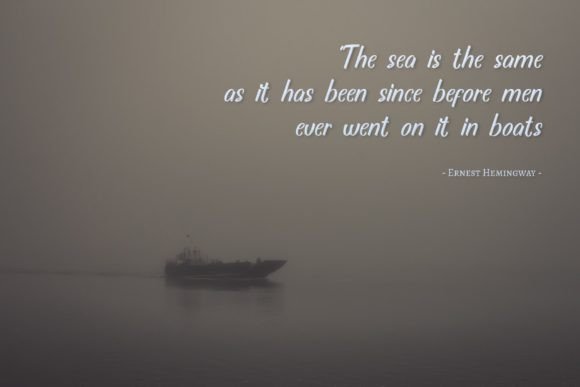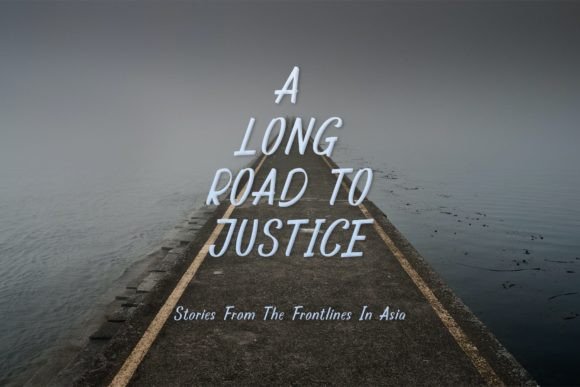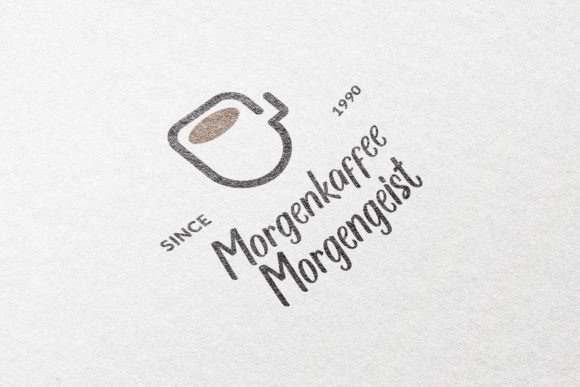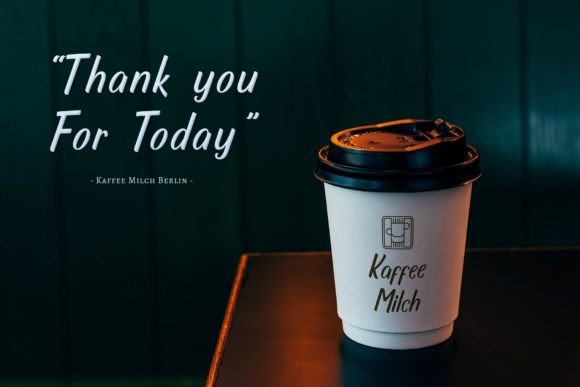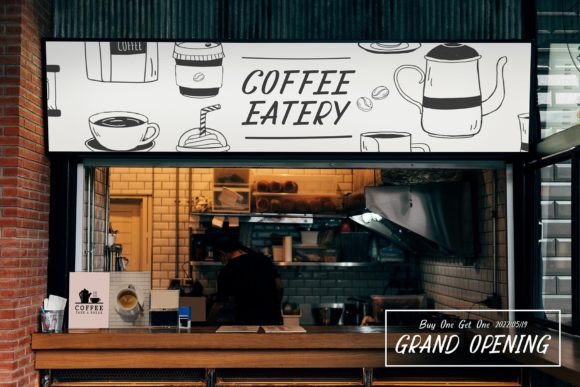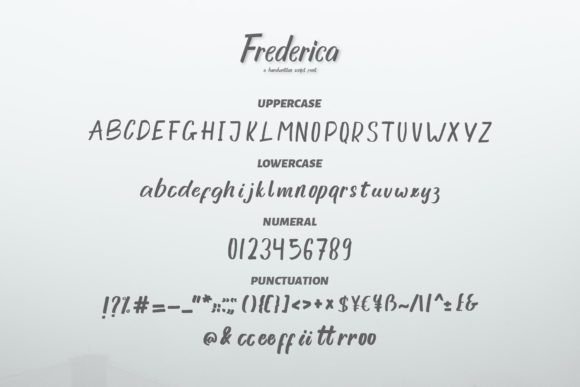
Introducing Frederica Signature: The Modern Handwritten Font for Elegant Designs
In the world of typography, a new font has emerged that embodies the perfect blend of elegance, simplicity, nature, and modernity. Say hello to Frederica Signature, a modern handwritten font designed to elevate your designs to the next level. Whether you’re a designer, crafter, or simply someone who appreciates beautiful typography, Frederica Signature is sure to captivate your audience.
The Story Behind Frederica Signature
Frederica Signature was created with the intention of providing a font that can add a touch of sophistication and refinement to various design projects. The font’s design is inspired by the beauty of handwritten scripts, with a modern twist that makes it versatile and easy to read. The result is a font that exudes elegance and simplicity, making it perfect for a wide range of applications.
Key Features of Frederica Signature
So, what makes Frederica Signature stand out from other fonts? Here are some of its key features:
• Modern Handwritten Style: Frederica Signature boasts a fresh and modern handwritten style that is both elegant and approachable.
• Highly Legible: The font is designed to be highly legible, making it perfect for body text, headings, and titles.
• Versatile: Frederica Signature can be used for a wide range of design projects, from print materials to digital applications.
• Nature-Inspired: The font’s design is inspired by the natural world, giving it a organic and earthy feel.
Use Cases for Frederica Signature
Frederica Signature is an incredibly versatile font that can be used for various design projects. Here are some use cases to get you started:
• Head Titles and Quotes: Use Frederica Signature to create stunning head titles and quotes for your blog posts, articles, and social media graphics.
• Greeting Cards and Invitations: Add a touch of elegance to your greeting cards and invitations with Frederica Signature.
• Wedding Designs and Events: Frederica Signature is perfect for wedding designs, event invitations, and other celebratory materials.
• Printed Materials: Use Frederica Signature for brochures, flyers, posters, and other printed materials that require a touch of sophistication.
Why Choose Frederica Signature?
With so many fonts available, why choose Frederica Signature? Here are a few reasons:
• Unique and Exclusive: Frederica Signature is a unique and exclusive font that will set your designs apart from the rest.
• Elegant and Refined: The font’s elegant and refined design makes it perfect for designs that require a touch of sophistication.
• Easy to Read: Frederica Signature is highly legible, making it easy for your audience to read and understand your message.
In conclusion, Frederica Signature is a modern handwritten font that is sure to elevate your designs to the next level. With its elegant and refined design, high legibility, and versatility, Frederica Signature is perfect for designers, crafters, and anyone who appreciates beautiful typography. Whether you’re looking to create stunning head titles, elegant greeting cards, or sophisticated printed materials, Frederica Signature is the perfect choice.